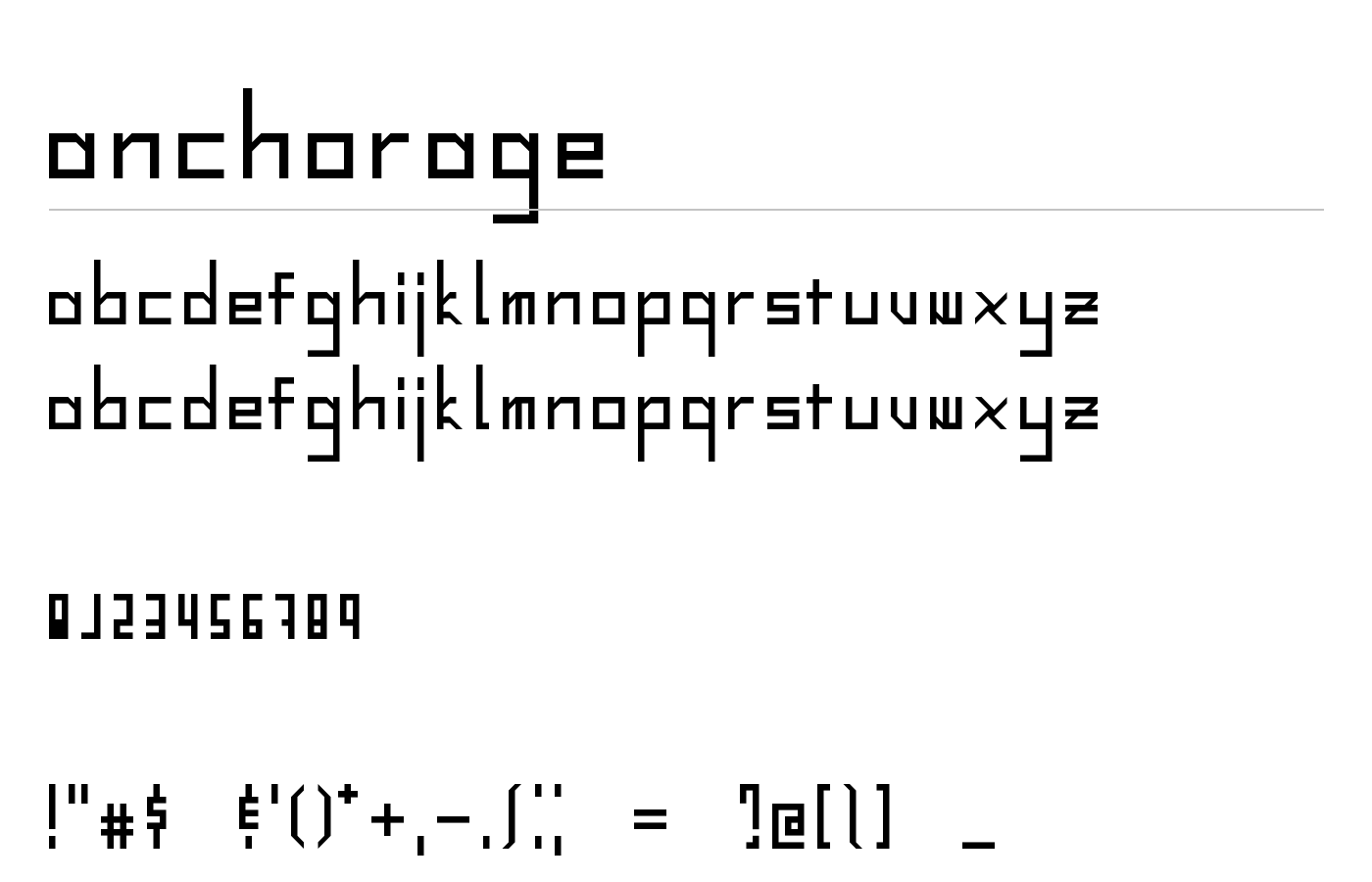
Anchorage is a distinct, geometric sans serif font with a modern, technical vibe. Its crisp, angular letterforms and consistent stroke weight create a clean, structured appearance that works well for digital interfaces, coding projects, and futuristic designs. This font’s unique, grid-like style makes it ideal for headlines, logos, or any context where a bold, innovative look is desired.
Anchorage Font